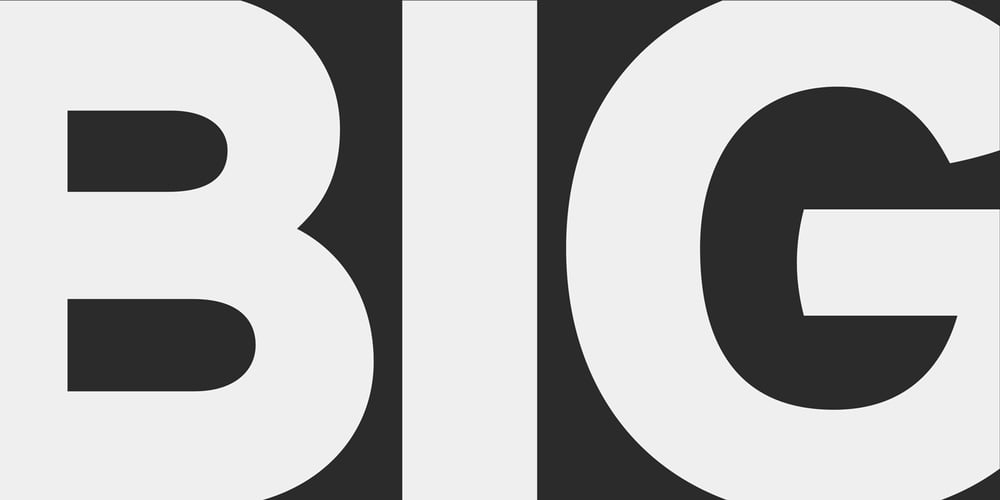
Kamber
Kamber font
Kamber Font Family was designed by Jonathan Gibson and published by Studio Buchanan. Kamber contains 16 styles and family package options. Kamber is a playful and approachable, neo-grotesque sans-serif with a handful of humanist flourishes. Subtle convex terminals and a curved structure create it’s friendly personality and bouncy rhythm. If you’re looking for a warm typeface that’s affable without straying into cliché, then Kamber is your new best friend – like the labrador of typefaces. Kamber’s balanced yet quirky nature makes for a fun and interesting display face, without compromising on legibility at smaller sizes. The lowercase letters have an elevated x-height, sitting at around 70% of the cap height – this means running copy remains clear and readable. Available in 8 weights, each with a corresponding italic, Kamber is a widely functional typeface that can hold it’s own, regardless of the use case. It includes all the usual open type features for further adaptation and variation, including small caps, ligatures, stylistic alternates and more. The primary numerals are lining figures, but tabular figures, old style figures, and a combination of both are also included. If you’re looking for something to stand out from the sea of overly geometric faces and soulless helvetica variants, then Kamber is ready and waiting. Perfect for editorial design, branding or anywhere you use text – Kamber is the typeface that smiles.